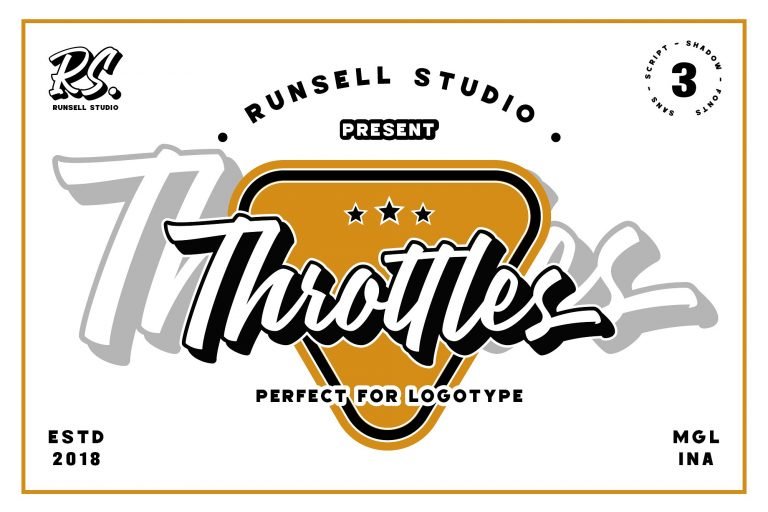
Throttles Logotype
Hello friend. Font’s created specifically for purpose logotype. A design of Runsell Studio. Introducing Throttles Font. In addition to the purposes of logotype Trottles Font can also be applied in the esport logo, sticker, apparel, bag, magazine, website headlines, packaging, branding, quotes, business cards, and more. We hope this can make inspire for your work.